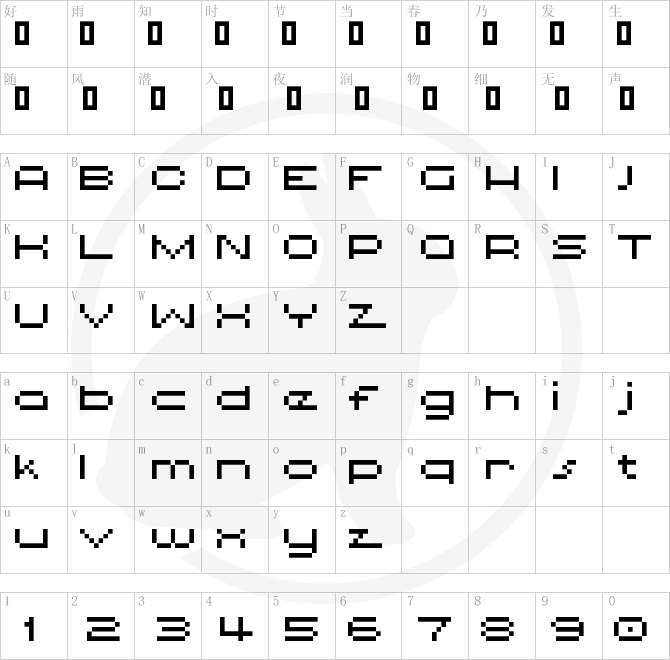
- Font Name:00BallistixFat
00BallistixFat.ttf is a very beautiful artistic font, 00BallistixFat.ttf is widely used in the design and printing of various books and pictures,00BallistixFat.ttf has a strong visual impact,00BallistixFat.ttf is a commonly used font in newspapers, magazines and books, and is used in posters, e-commerce Poster design, store design, logo design, font design and other fields.00BallistixFat.